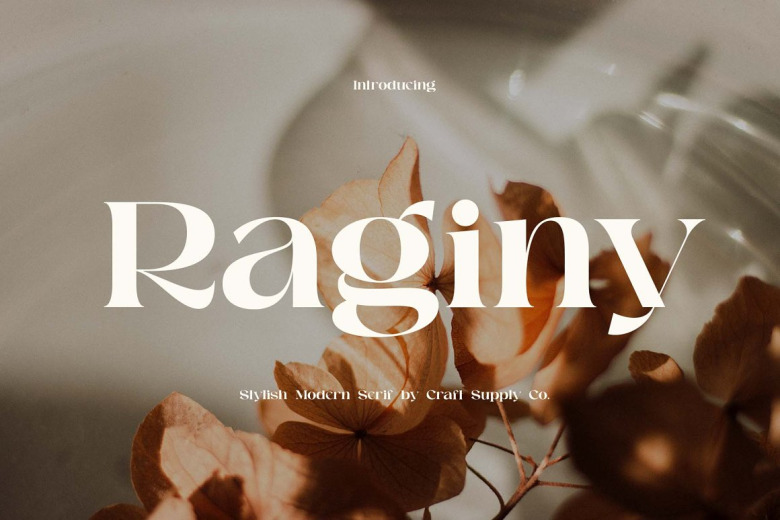
Raginy Font
Raginy Font is a modern serif type with high contrast and crisp serif that make it stand out for display or short text purposes. It can be used to create almost all types of design projects like print materials. Just use your imagination and your project will become more alive and look great than ever with this typeface.
You want to make a greeting card or a package design, or even a brand identity, craft design, any DIY project, book title, wedding font, pop vintage design, retro design or any purpose to make your art / design project look pretty and trendy? Feel free to play with this typeface!
Raginy Modern Serif Font